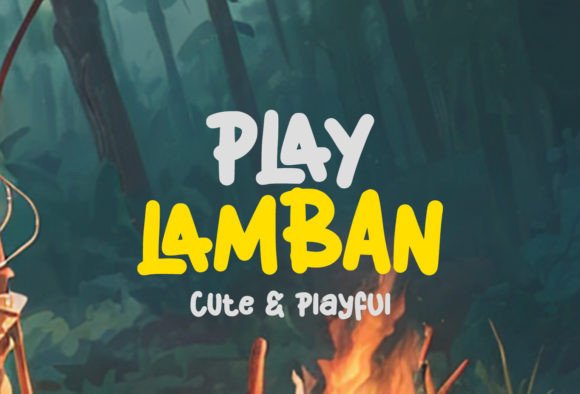
Introduction to Playlamban Font
Have you ever found yourself staring at a blank page, desperate for the perfect font to bring your creative vision to life? It’s a moment we’ve all experienced – the one where the words just won’t flow, and the design seems stuck. But what if I told you that there’s a font that can elevate your work, making it truly unforgettable?
Meet the Playlamban Font, a game-changing design resource that’s about to revolutionize the way you approach your creative projects. With its sophisticated charm and high-quality aesthetic, this font is sure to make your text stand out from the crowd. Whether you’re a seasoned designer or just starting out, the Playlamban Font is the perfect addition to your design arsenal.
Key Features of Playlamban Font
- Unique, modern design with a transparent background for versatility
- Perfect for use in digital design, including websites, social media, and graphics
- Great for designers and artists looking for a unique, high-quality font for their next creative project
Honest Review: Playlamban Font
I recently had the chance to work with the Playlamban Font, and I must say it’s been a game-changer for my creative projects. The font is free to download, which is always a plus in my book. What I love most about this font is its high quality and versatility. It’s perfect for a wide range of design needs, from logos to typography.
Here are some of the things that work well with the Playlamban Font:✨
- Transparency background, making it easy to use on any background
However, I did encounter a few limitations with the font. Here are some of the things that could be improved:⚠️
- Limited character set, may not be suitable for complex projects
- No bold or italic versions available
Overall, I’m very impressed with the Playlamban Font. It’s a fantastic design resource that’s perfect for anyone looking for a high-quality, free font. I highly recommend giving it a try for your next creative project.
The Playlamban Font is a high-quality design resource perfect for creative projects that require a unique and stylish touch. This versatile font can be downloaded for free, making it an excellent choice for designers and artists on a budget.
With the Playlamban Font, you can create professional-looking designs with a transparent background, perfect for a variety of creative projects. Some common use cases include:
– Designing business cards and brochures
– Creating social media graphics and posters
– Developing presentations and reports
Remember to use the font with a transparent background to achieve the best results. With practice and
Yes, the Playlamban Font supports transparent backgrounds, making it perfect for design projects that require a high level of customization and flexibility. You can easily use the font with a transparent background in your creative projects, such as website headers, social media graphics, and more.